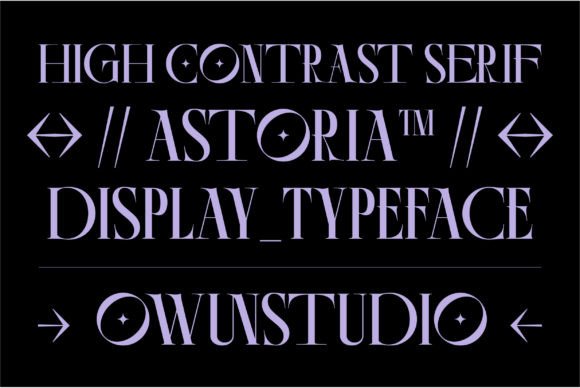
The Elusive Perfect Font: My Journey with AO Astoria
I’ll never forget the frustration of working on a high-end branding project, only to hit a roadblock: finding the perfect font. My client wanted something classic, refined, and sophisticated, but everything I tried seemed to fall flat. That was until I stumbled upon the AO Astoria font. With its elegant serif design and intricate details, it was like a breath of fresh air. In this article, I’ll share my experience with AO Astoria, its features, and how to make the most of it in your designs.
A First Impression: What I Love About AO Astoria
So, what makes AO Astoria so special? Here are a few things that caught my attention:
- ✨ Elegant serif design: AO Astoria boasts a sophisticated and timeless look that’s perfect for high-end designs.
- ✅ Intricate details: Each character is crafted with attention to detail, making it ideal for logos, branding, and other premium projects.
- 💯 Versatile: AO Astoria works well in various design contexts, from print to digital.
Honest Review: The Not-Perfect-but-Almost Section
No font is perfect, and AO Astoria has a few quirks:
- 🤔 Limited language support: While AO Astoria covers the basics, it might not support every language or character set.
- ⚠️ Occasional kerning issues: As with any font, you might need to adjust kerning for optimal results.
The Story Behind AO Astoria
AO Astoria was designed with the goal of creating a timeless, elegant font that would meet the needs of high-end designers. Inspired by classic serif fonts, the AO Astoria team aimed to craft a font that would be both sophisticated and versatile.
| Font Name | Ao Astoria Font |
| Author | OwunStudio |
| What is AO Astoria best used for? | AO Astoria is ideal for high-end designs, logos, branding, and premium projects. |
| Is AO Astoria suitable for body text? | While AO Astoria can be used for body text, it’s primarily designed for headlines and titles. |